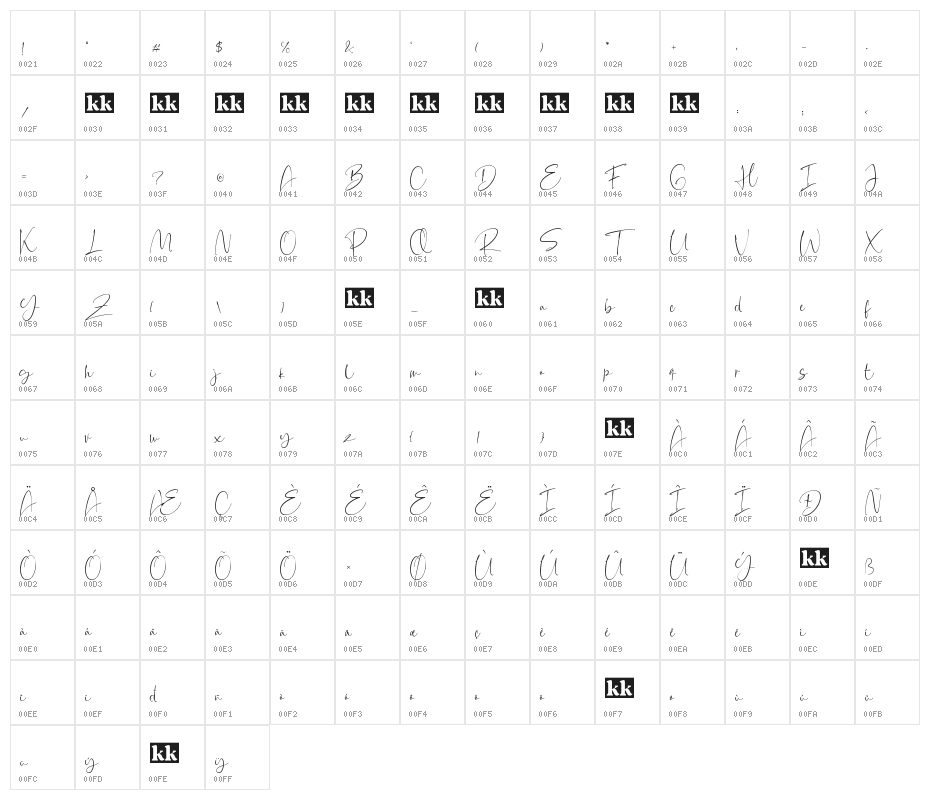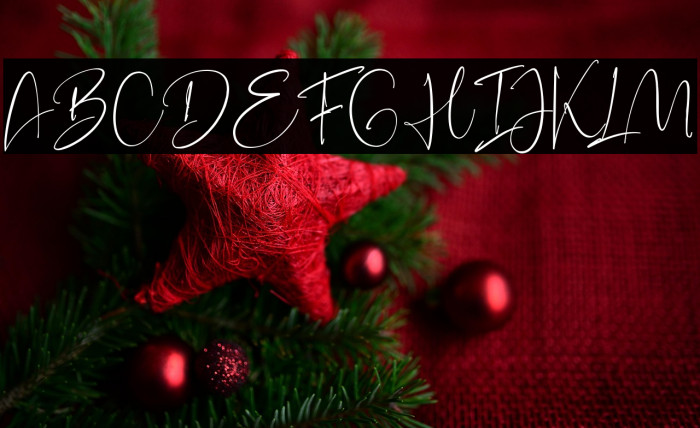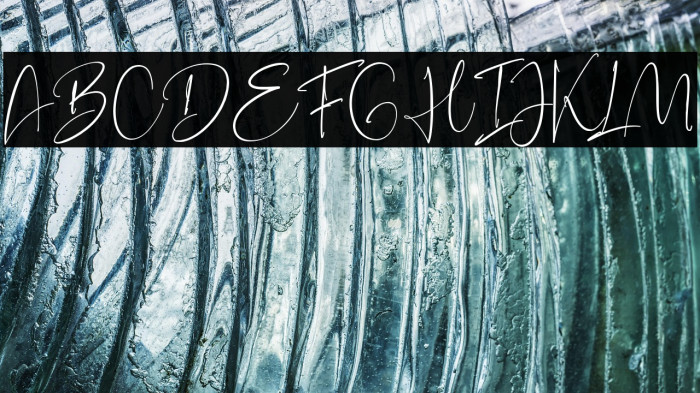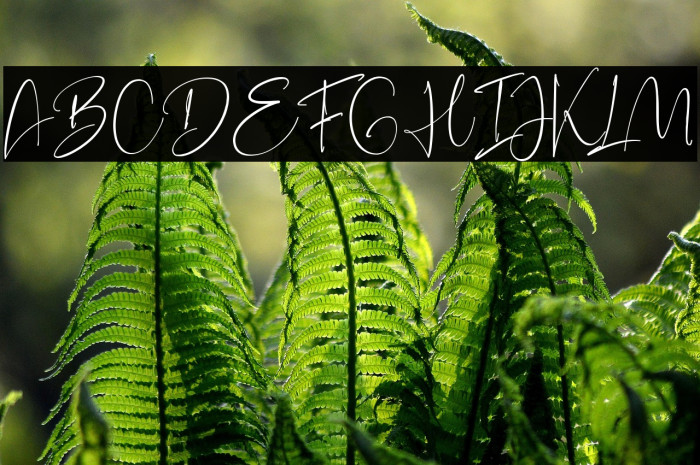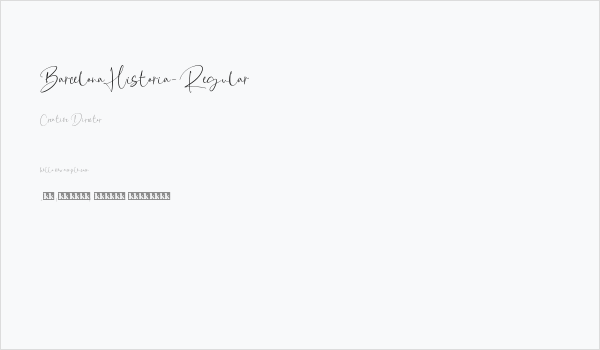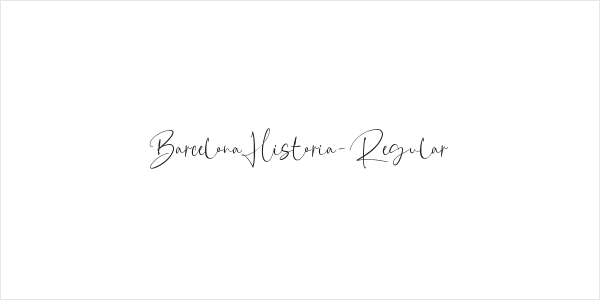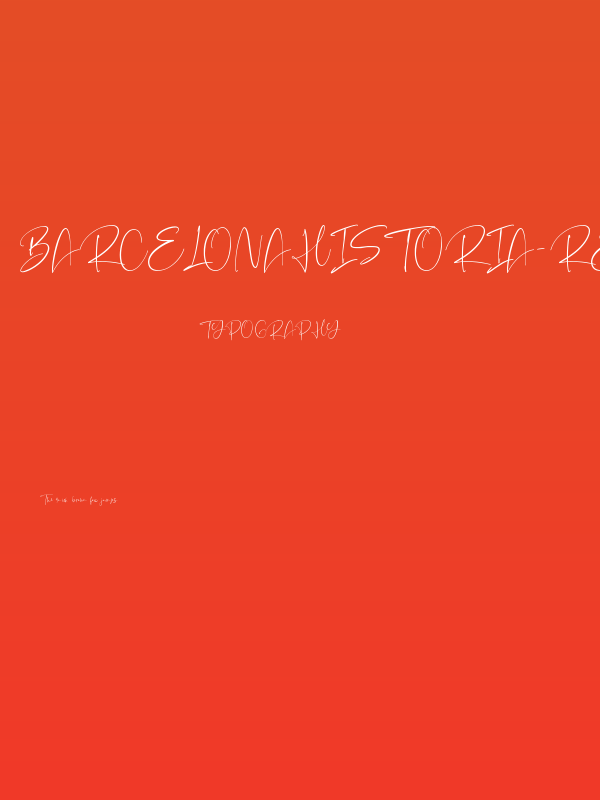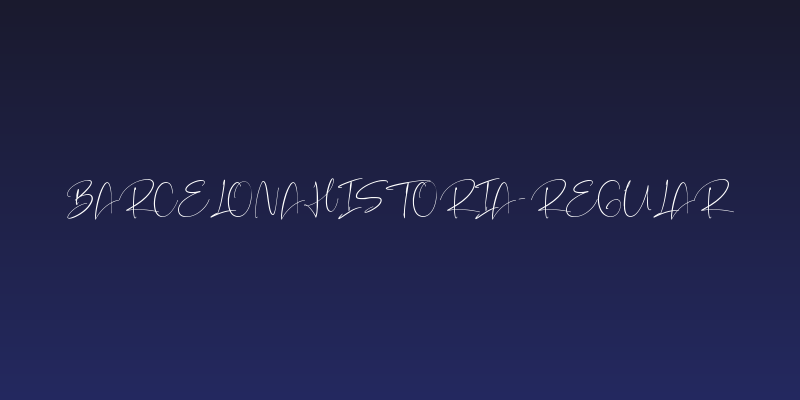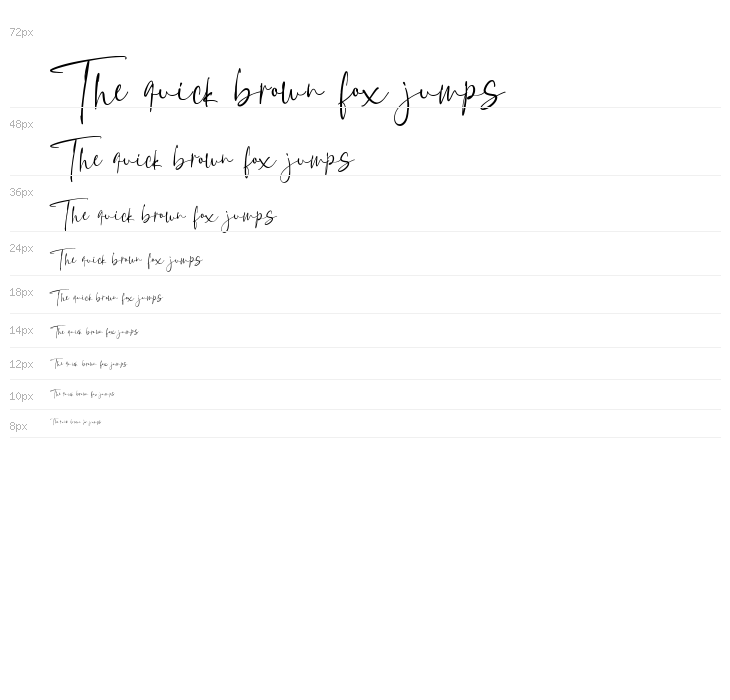
BarcelonaHistoria-Regular Font
BarcelonaHistoria-Regular Description
This font features an elegant and flowing script style, characterized by its smooth, cursive strokes and artistic flair. The uppercase letters are bold and expressive, with a sense of movement that adds a dynamic quality to the text. The lowercase letters maintain a consistent flow, complementing the uppercase with their graceful curves. The font includes a unique set of special characters, adding versatility for creative projects. Its overall appearance is both sophisticated and playful, making it suitable for a variety of design applications.
| Overall Style | Elegant, Artistic |
| Use Case | Headlines, Invitations, Branding |
| Proposed Projects | Ideal for wedding invitations, greeting cards, branding, and elegant logo designs. |